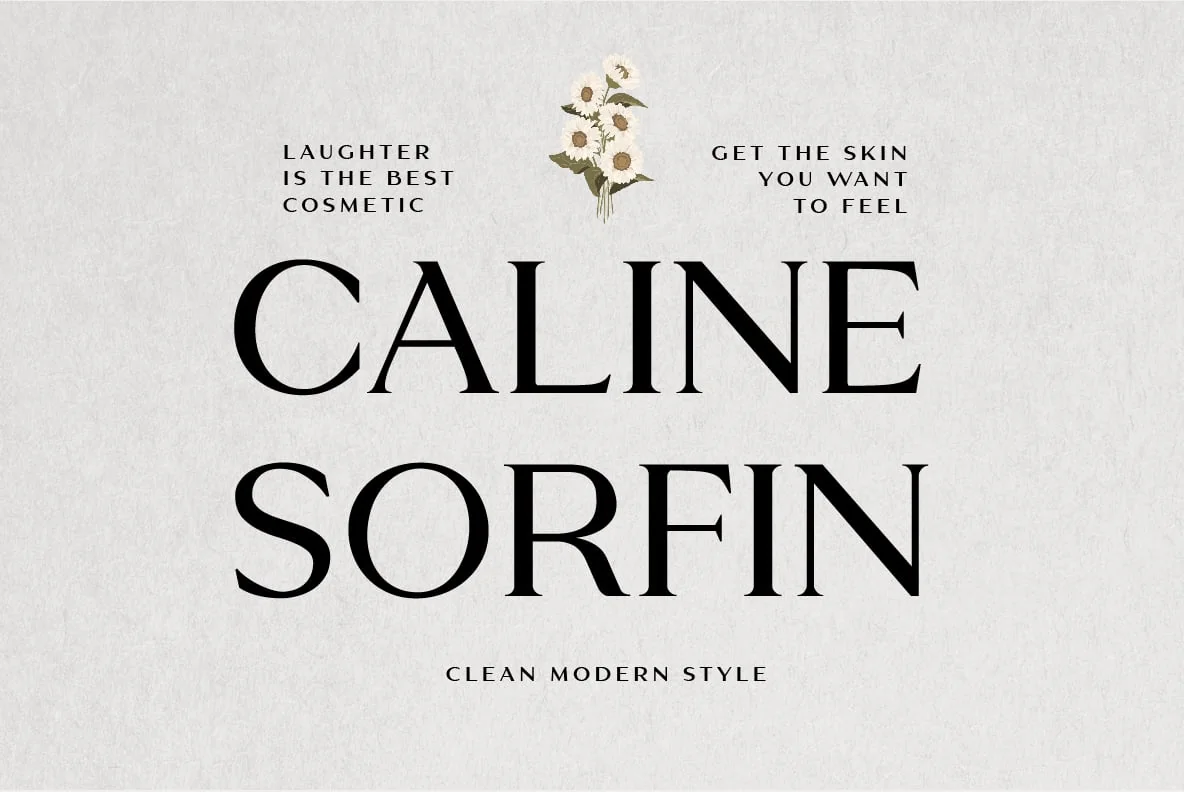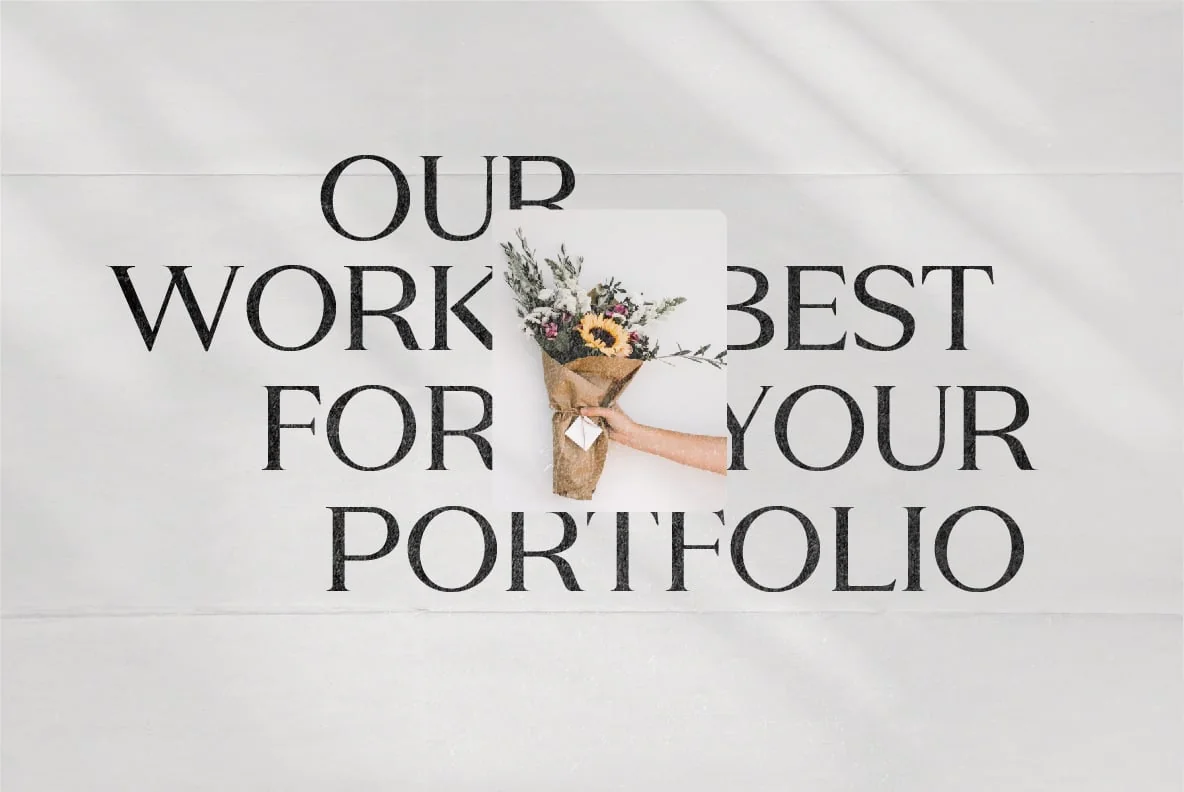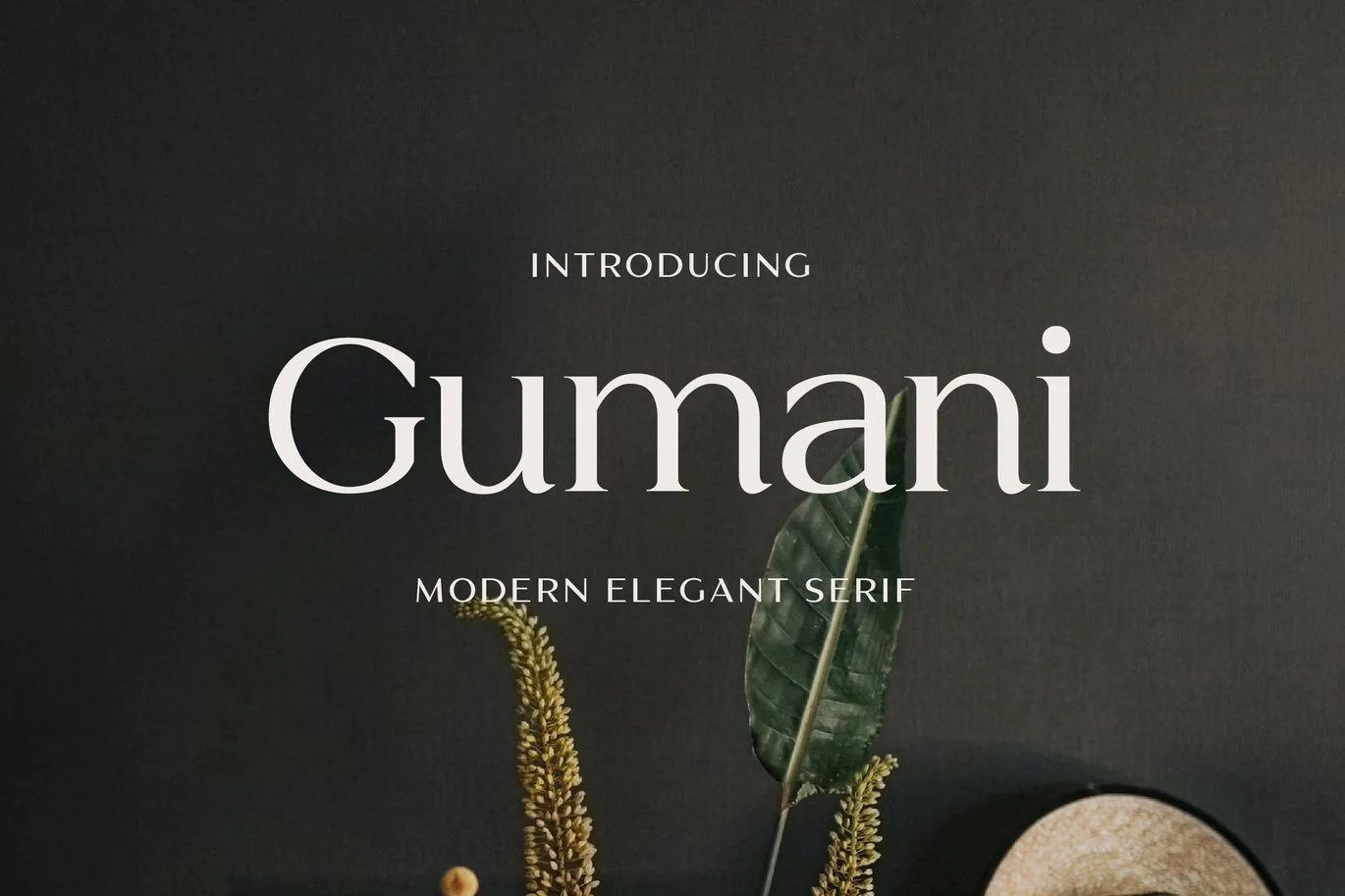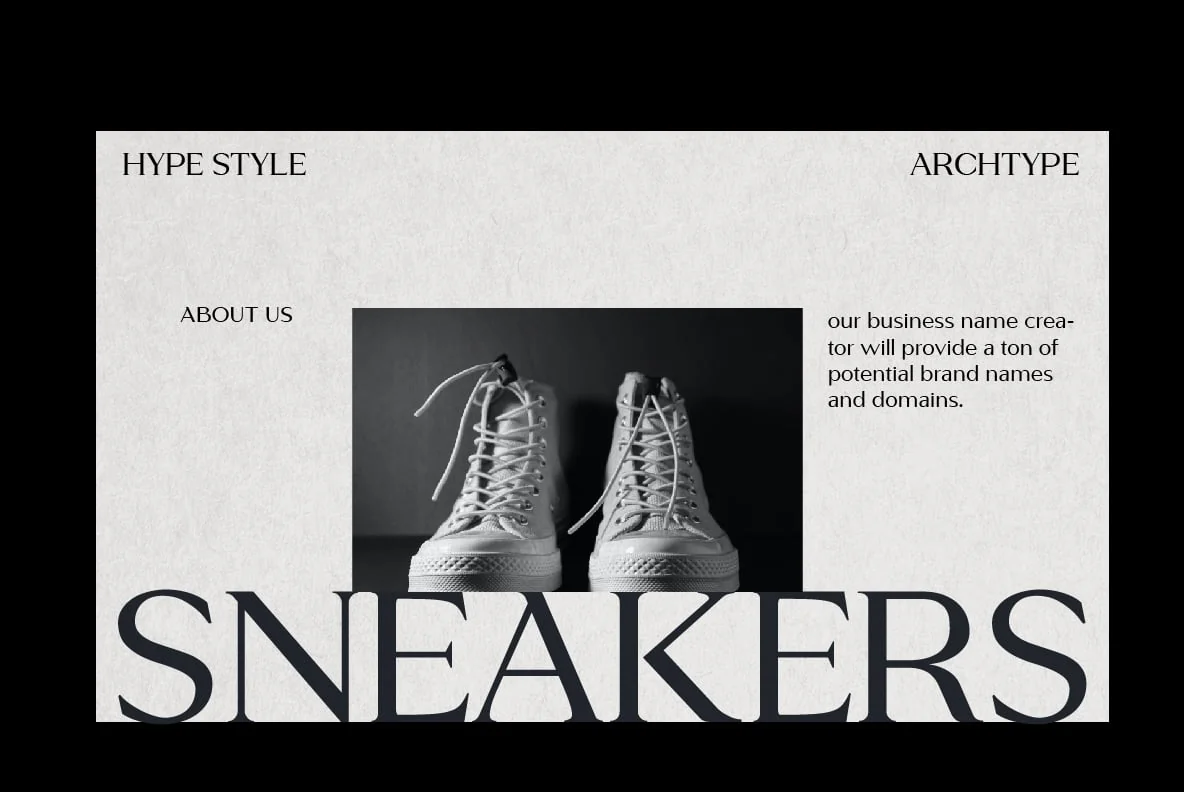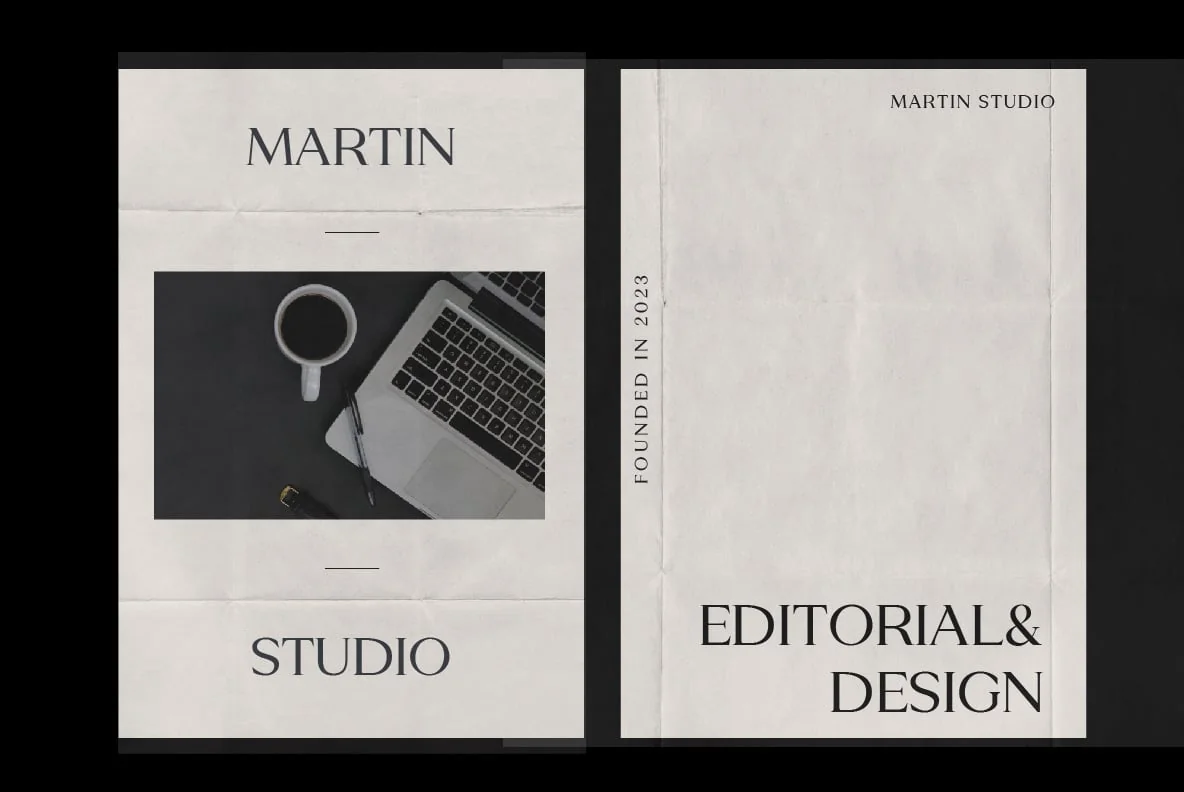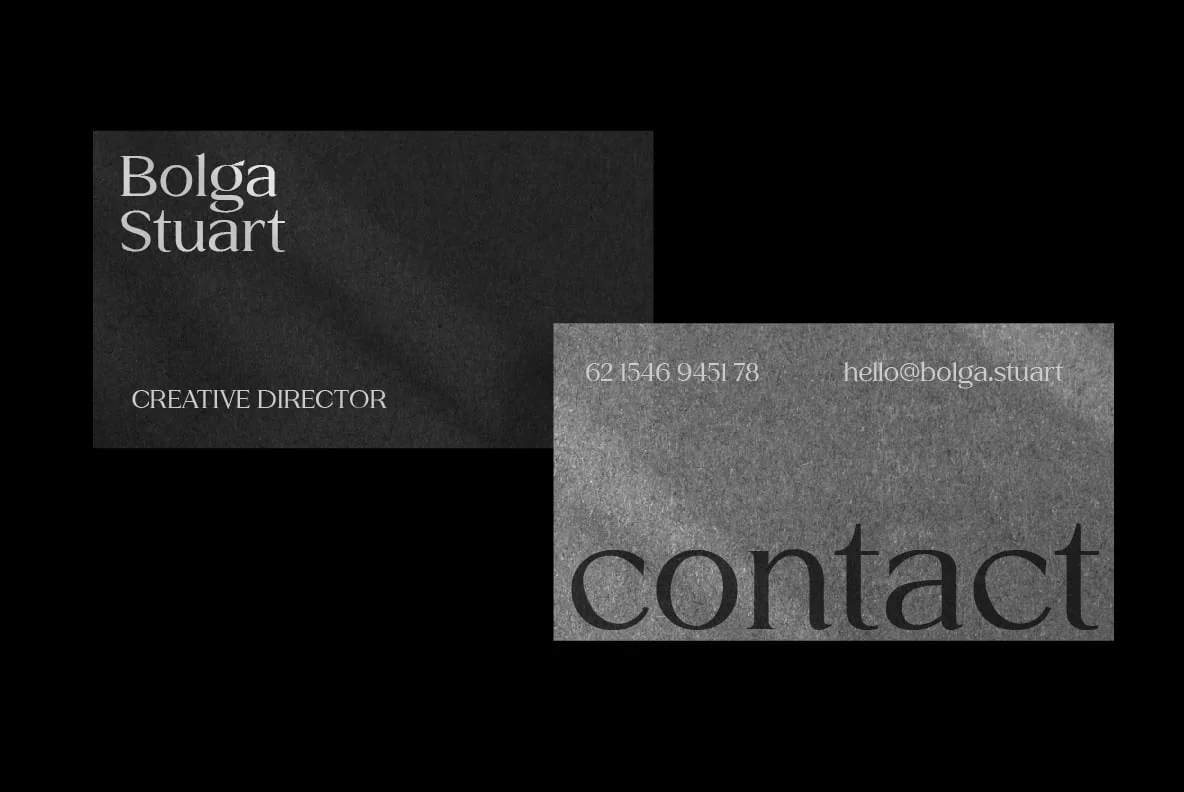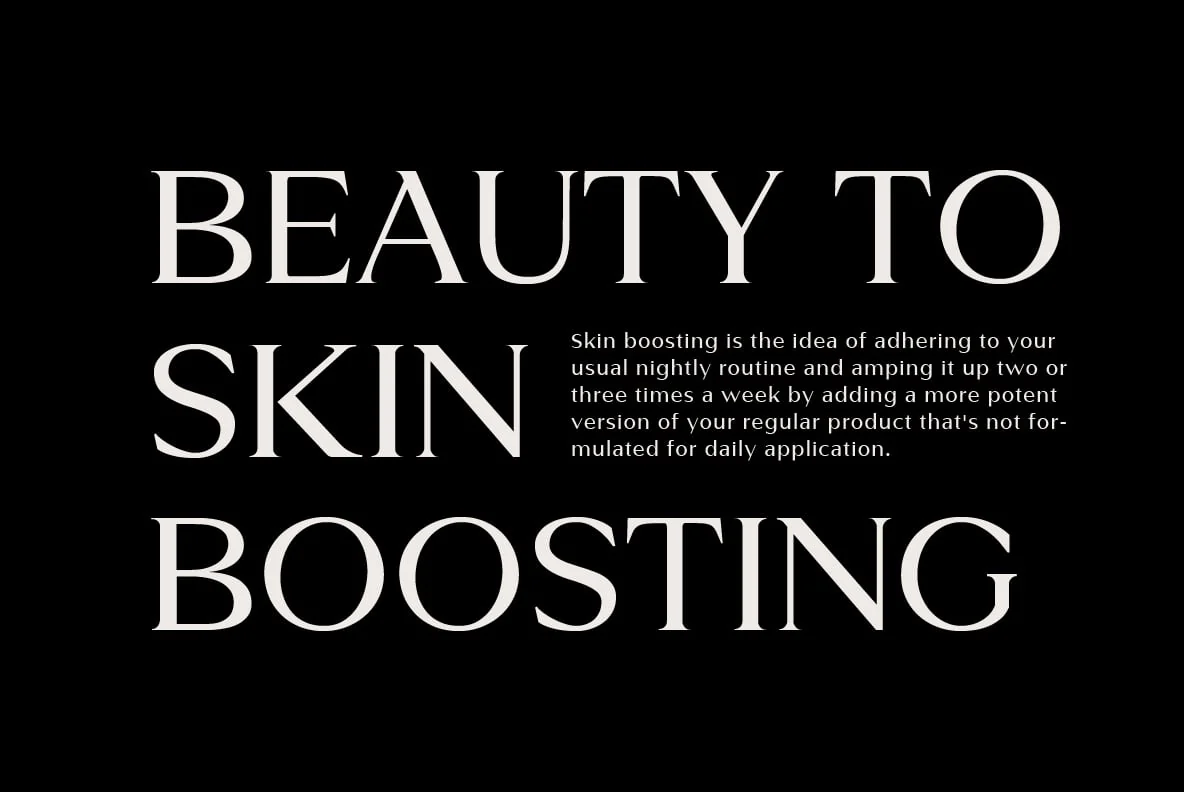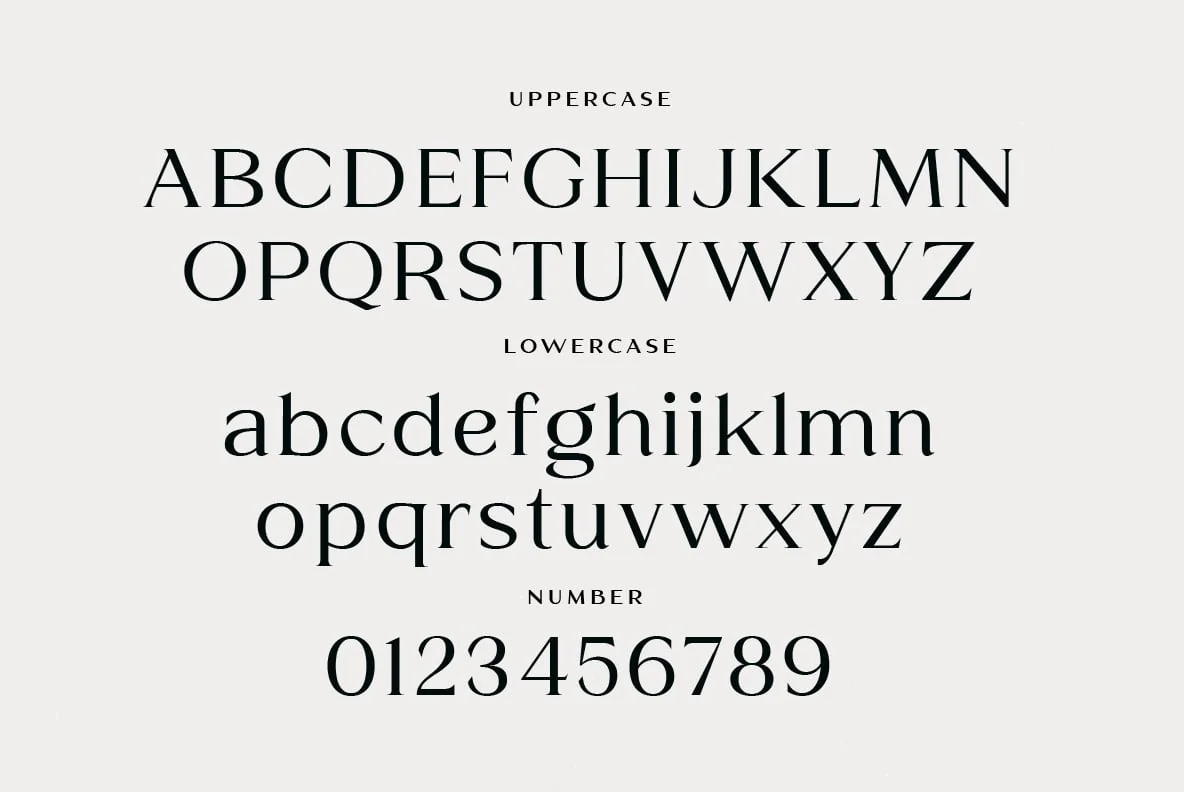
Gumani Serif Font
Gumani Serif Font is a typeface with a characteristic of smooth yet firm lines. It has an elegant serif shape with balanced letter proportions.
Gumani Serif Font offers clarity and ease of reading, making it suitable for designs that require good readability such as publications, books, articles, and logo and brand identity designs. In its use, Gumani Serif Font can provide an elegant and professional impression on the resulting design.